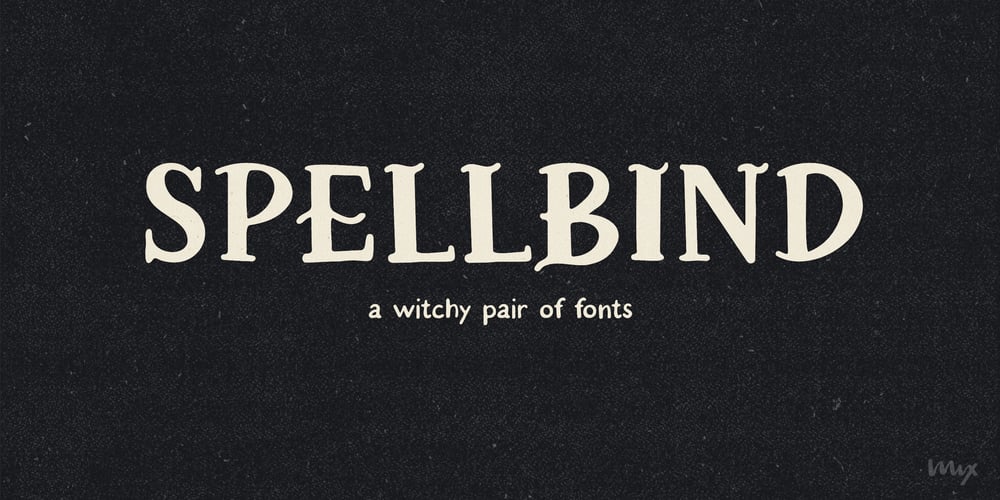
Spellbind Font Family was designed by Mikko Sumulong and published by Mix Fonts. Spellbind contains 2 styles and family package options. If you’re a witch, or just prefer the look of a font that has hexes and wibbles, MIX SPELLBIND and MIX SPELLBIND SANS are the fonts for you. They’re perfect for posters, tarot cards, websites and all those other witchy things that need to be done… but don’t want to get “spooked” on. Grab this font family and make anything spell worthy!MIX SPELLBIND comes with the following glyphs: ABCDEFGHIJKLMNOPQRSTUVWXYZ abcdefghijklmnopqrstuvwxyz 0123456789 !@#$%^&*()`~•· ÷×+−±≈=≠[]:;’”,.|/?{}“”‘’-–—_ …‚„©®‹›«»°¹²³ªº¡¿₱¢€£¥¶§† ÁÀÂÄÃÅĂĀĄÆĆĈČÇÐĐÉÈÊËĖĒĘĜĤIÍÌÎÏĪĮĴŁŃÑŇ ÓÒÔÖÕŌŐØŒŔŘŚŜŠŞȘŤȚÚÙÛÜŮŰŬŪŲẂẀŴÝŶŸŹẐŽŻÞẞ áàâäãåăāąæćĉčçðđéèêëėēęĝĥıíìîïīįĵłńñň óòôöõōőøœŕřśŝšşșťțúùûüůűŭūųẃẁŵýŷÿźẑžżþß MIX SPELLBIND SANS comes with the following glyphs: ABCDEFGHIJKLMNOPQRSTUVWXYZ abcdefghijklmnopqrstuvwxyz 0123456789 !@#$%^&*()`~♥❤•· ÷×+−=[]:;’”,.|/?{}“”‘’-–—_…‚„ ©®™‹›«»°¹²³ªº¡¿₱¢€£¥¶§№† ÁÀÂÄÃÅĂĀĄÆĆĈČÇÐĐÉÈÊËĖĒĘĜĤIÍÌÎÏĪĮĴŁŃÑŇ ÓÒÔÖÕŌŐØŒŔŘŚŜŠŞȘŤȚÚÙÛÜŮŬŪŰŲẂẀŴÝŶŸŹẐŽŻÞẞ áàâäãåăāąæćĉčçðđéèêëėēęĝĥıíìîïīįĵłńñň óòôöõōőøœŕřśŝšşșťțúùûüůŭūűųẃẁŵýŷÿźẑžżþß